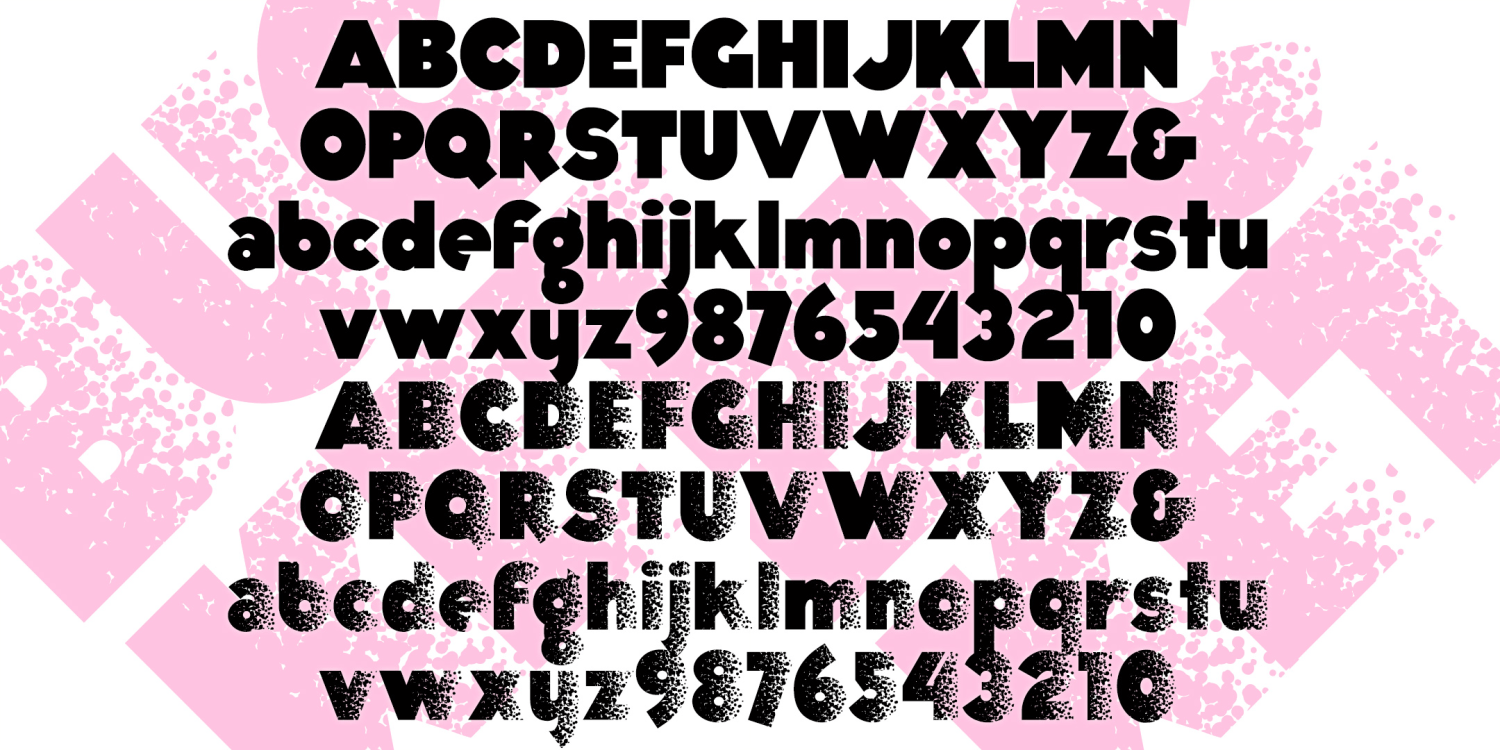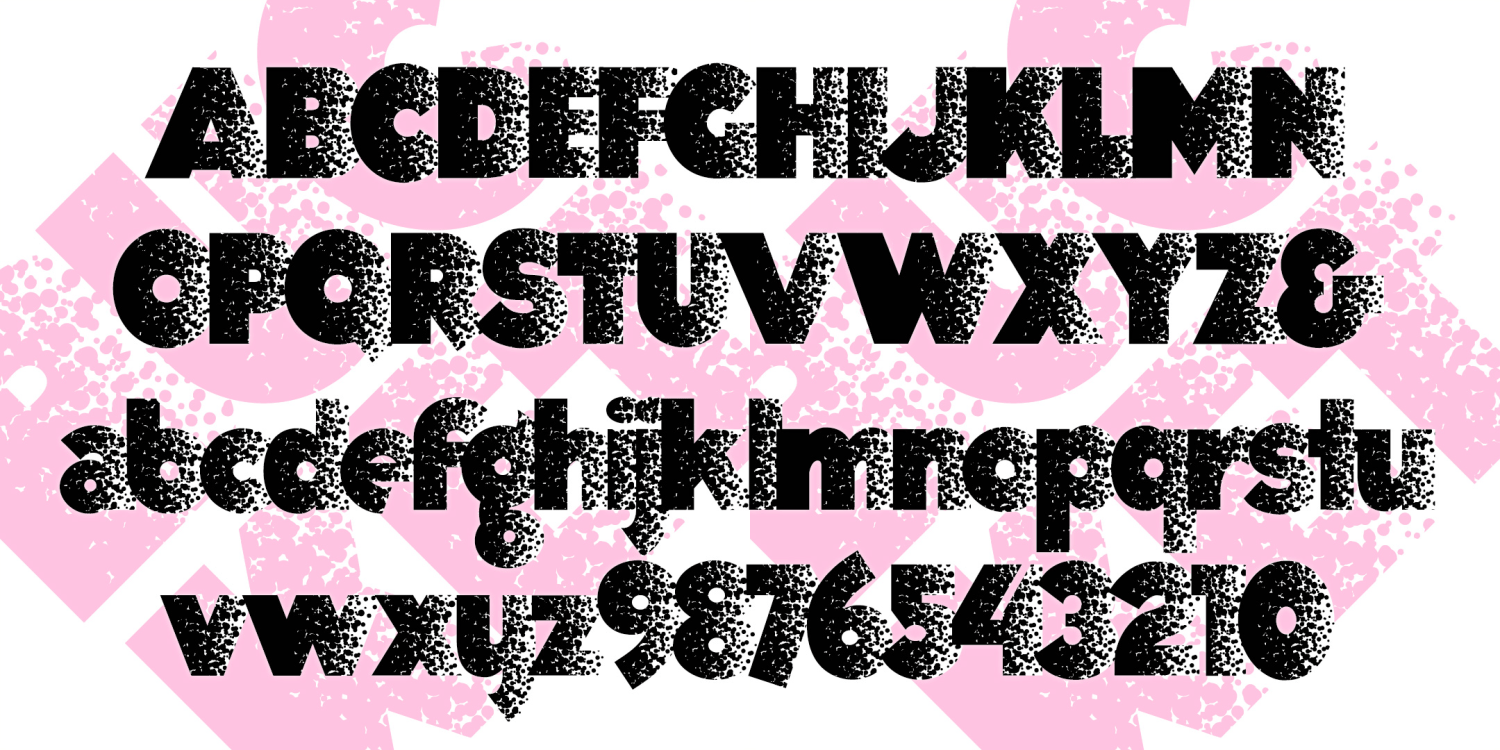
Bucket
Bucket is a bold and bouncy geometric sans serif, familiar with just enough flair to catch the eye. And then there's a second font, BUCKET SPATTER, where the letters each have a strong dot texture on the right side, as if sprayed or spattered. The fonts can be used separately or layered together in contrasting colors. The spacing of the Spatter font can adjusted so the letters overlap and remain legible, as in the illustration.
These fonts were inspired by early 20-century showcard lettering in which ink spatter, shading on rough paper, and other techniques were used to add texture and dimension.